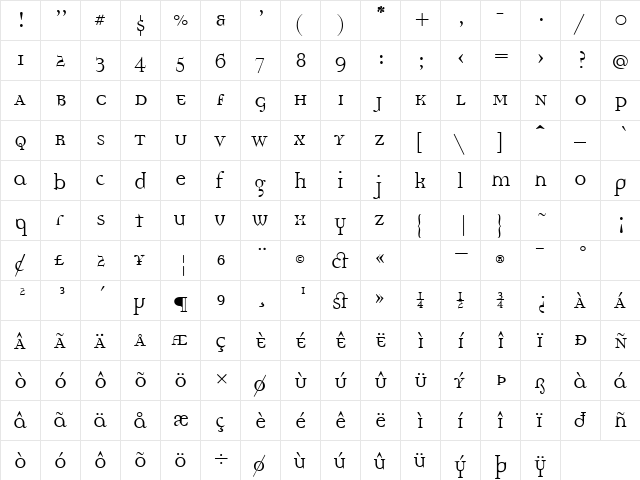
DemocraticaRegularOldstyle Regular
Design Context for DemocraticaRegularOldstyle Typeface
DemocraticaRegularOldstyle carries the refined structure of traditional serif typography, with bracketed terminals and considered proportions that communicate credibility and craft.